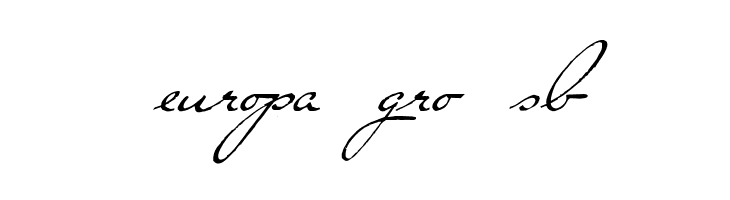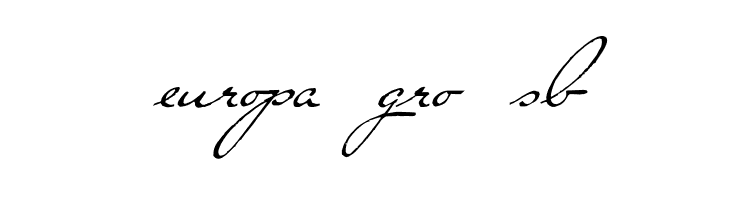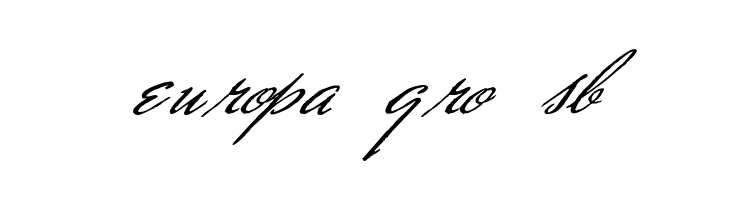
A graceful script font with flowing, cursive strokes and a classic handwritten style.
An elegant, cursive script font with flowing, connected strokes.
An elegant script font with flowing, cursive letterforms and dynamic stroke variations.